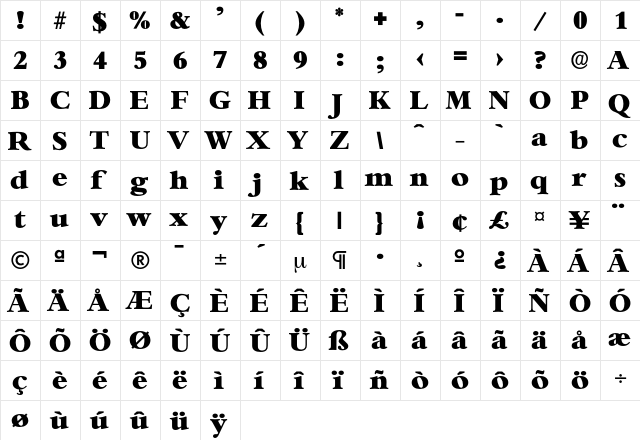
Habitus Regular
Design Context for Habitus Typeface
Habitus is a composed and adaptable typeface that performs quietly and consistently across a wide range of design contexts.